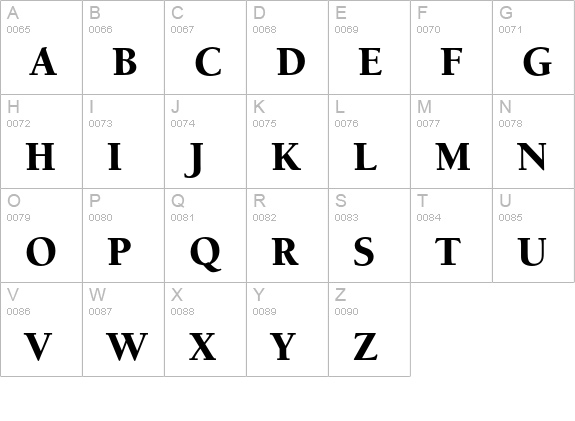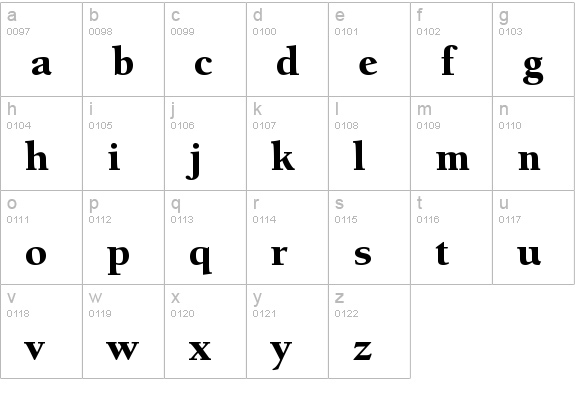
BerkeleyOldStyleEF-Black is a maximum-weight, dramatic variant in the BerkeleyOldStyleEF typeface family \xE2\x80\x94 well suited to maximum-impact headlines, posters, and packaging.
BerkeleyOldStyleEF-Black font exudes a sense of timeless elegance and sophistication. With its bold and distinctive letterforms, this font effortlessly commands attention and makes a strong statement. The deep black weight adds a touch of drama and richness to any design project. What sets BerkeleyOldStyleEF-Black font apart is not only its striking aesthetics but also its versatility. Whether used for headings, titles, or logo design, this font is sure to make a lasting impression. The best part? BerkeleyOldStyleEF-Black font is available for free download at FontsMarket.com. So go ahead and elevate your designs with this stunning typeface without breaking the bank. Download now and let your creativity soar with BerkeleyOldStyleEF-Black font.